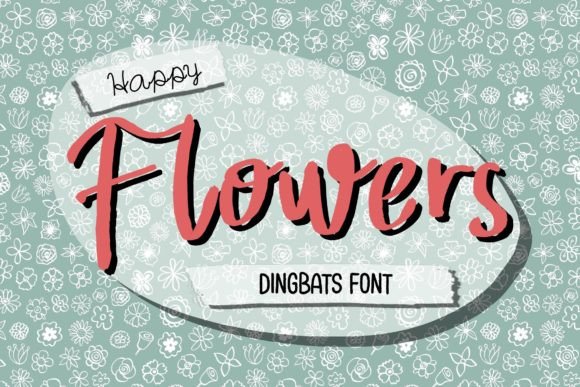
Venture into the enchanting realm of Happy Flowers Font, a dingbat font that brings nature's charming spirit to your digital creations. Step into a world where imagination flourishes, and boundless creativity takes root.
Dive into a sea of quirky and delightful icons that capture the essence of nature's wonders. Let your designs blossom with vibrant flowers, playful butterflies, frolicking animals, and a symphony of natural elements. Express your unique style with each stroke of the pen, transforming ordinary words into extraordinary works of art.
Happy Flowers Font is your passport to a world brimming with endless possibilities. From logos that bloom with life to wall art that whispers tales of enchanted forests, let this font guide you on an artistic journey like no other. Create eye-catching signs that draw attention like bees to honey, and design cards that carry the warmth of nature's embrace.
Unleash your inner artist and let Happy Flowers Font dance across your coloring pages, transforming them into canvases of whimsy and wonder. With each stroke of color, watch as ordinary lines transform into vibrant scenes of nature, inviting you to lose yourself in the joy of creation.
Happy Flowers Font is not just a collection of icons; it's an open invitation to let your imagination run wild and explore the boundless realms of creativity. Embrace the spirit of nature, let your thoughts bloom, and watch your designs flourish with Happy Flowers Font.
Embrace the beauty of nature, infuse your creations with joy, and let Happy Flowers Font guide you towards a world where imagination knows no bounds. Dive into the realm of nature's artistry and let your creations bloom with life.